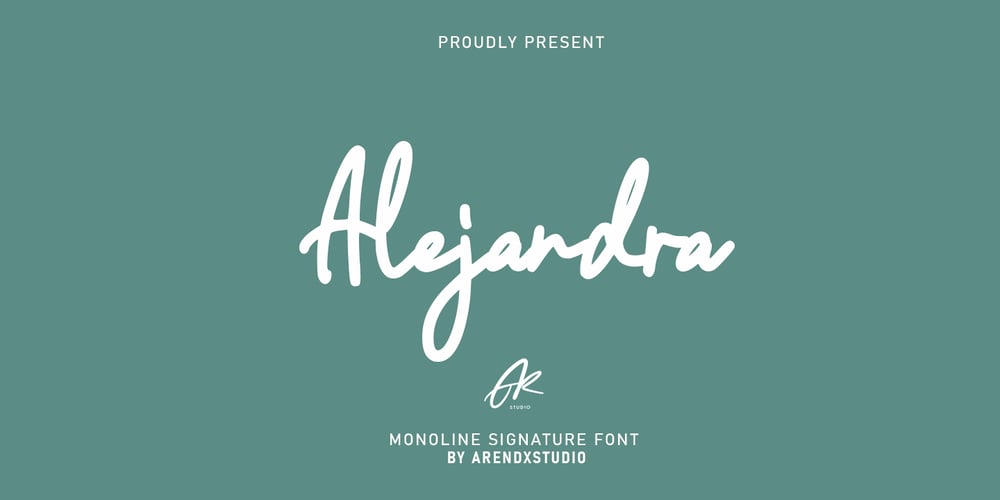
Alejandra Font Family was designed by Asep Rendi and published by Arendxstudio. Alejandra contains 1 styles and family package options. Alejandra Monoline is a bold font that is perfect for your design project.Alejandra comes with OpenType features such stylistic alternates, stylistic sets & ligatures which makes it great for logotypes, posters, badges, book covers, t-shirt design, packaging and many more.Features: • Character Set A-Z • Numerals & Punctuations (OpenType Standard) • Accents (Multilingual characters) • Ligature There it is! I really hope you enjoy.